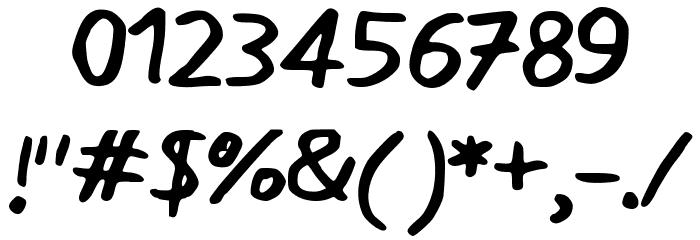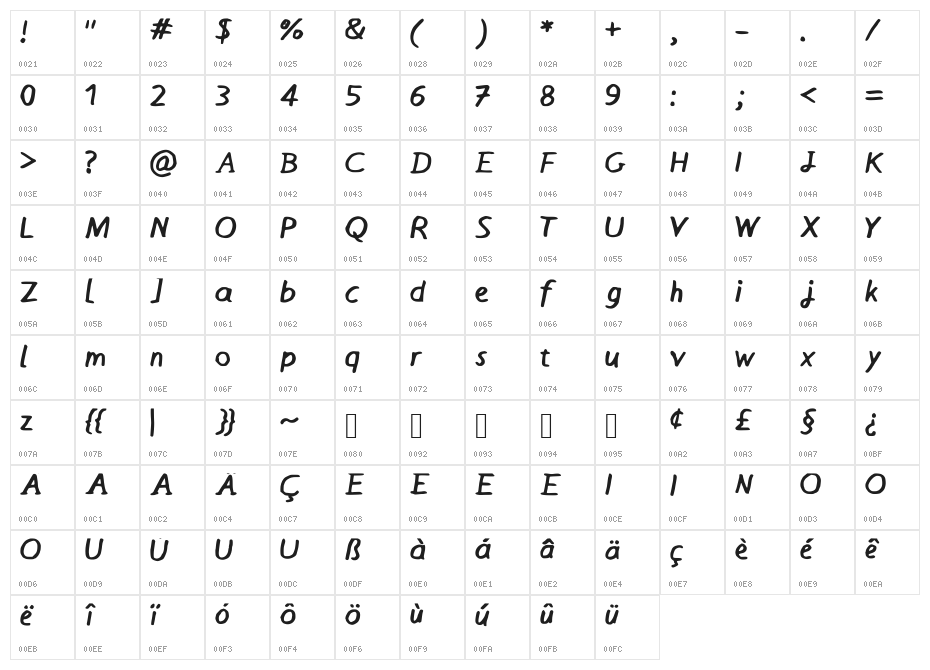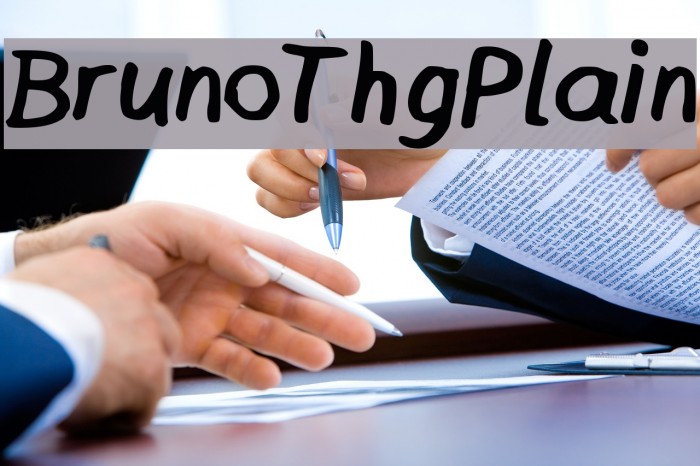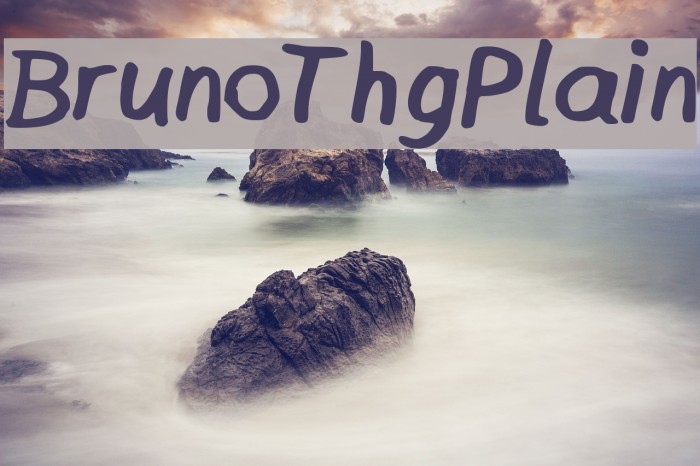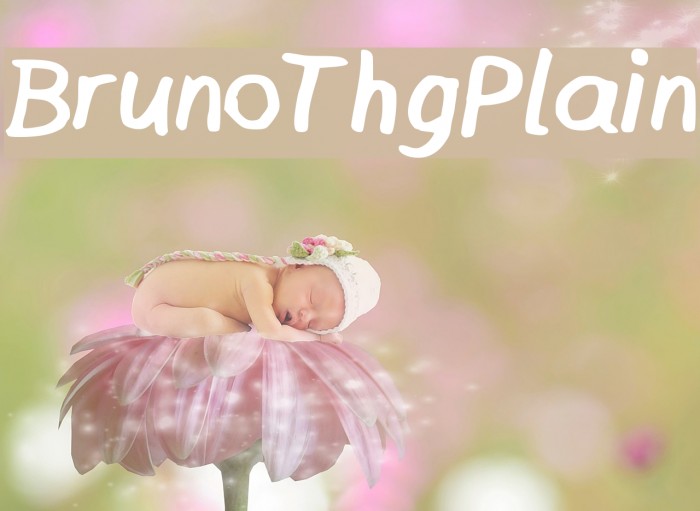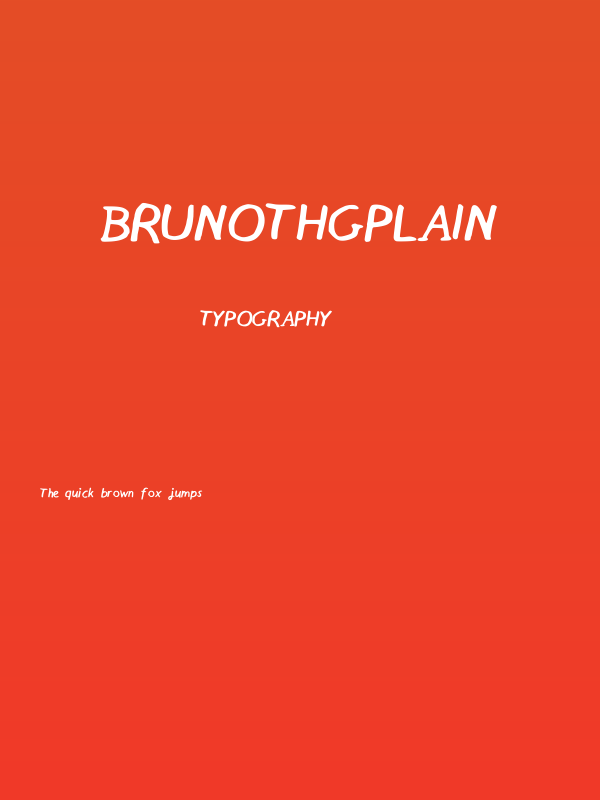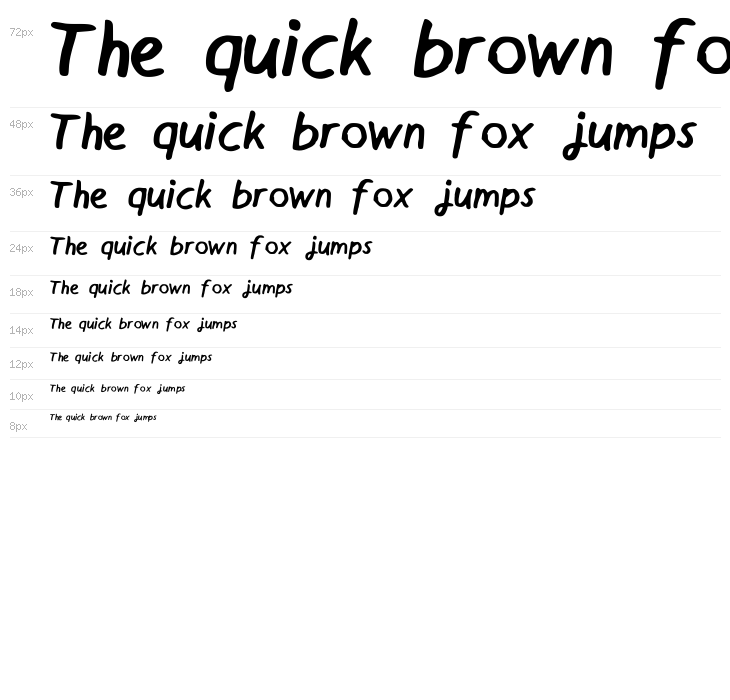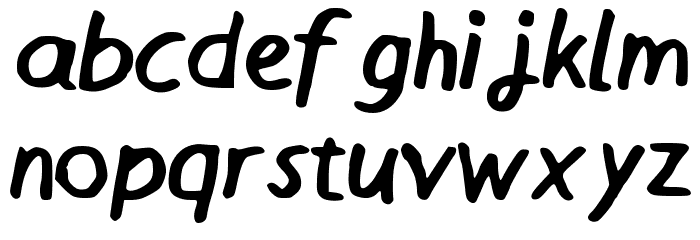
BrunoThgPlain Font
BrunoThgPlain Description
This font features a playful and casual handwritten style, characterized by its smooth, flowing curves and slightly irregular shapes that give it a personal touch. The letters are bold and rounded, with a consistent stroke width that maintains readability while adding a friendly and approachable feel. The uppercase letters are slightly taller than the lowercase, with a noticeable slant that adds to the dynamic appearance. The numbers and special characters follow the same style, ensuring a cohesive look across all text. This font is ideal for projects that require a human touch, such as invitations, greeting cards, or informal branding.
| Use Case | Headlines, Informal text, Personal projects |
| Proposed Projects | Ideal for invitations, greeting cards, informal branding, and personal projects. |